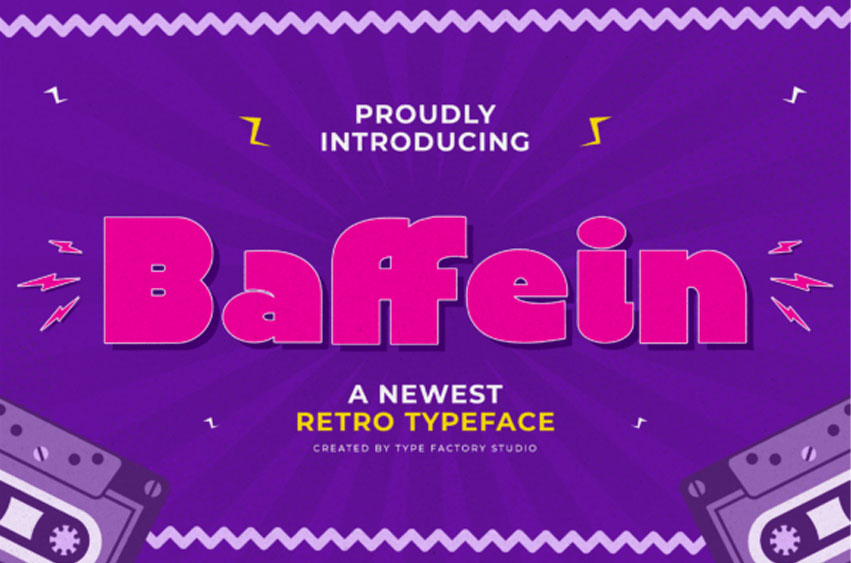
Baffein Font
Baffein Font is a bold retro typeface that blends nostalgic style with striking confidence. Inspired by vintage signage and classic 70s aesthetics, Baffein features thick, rounded characters and high visual impact.
Ideal for logos, headlines, posters, apparel, and packaging, this typeface gives your work a timeless retro flair with a modern edge. Bring a bold personality and a touch of grooviness to every design with Baffein.